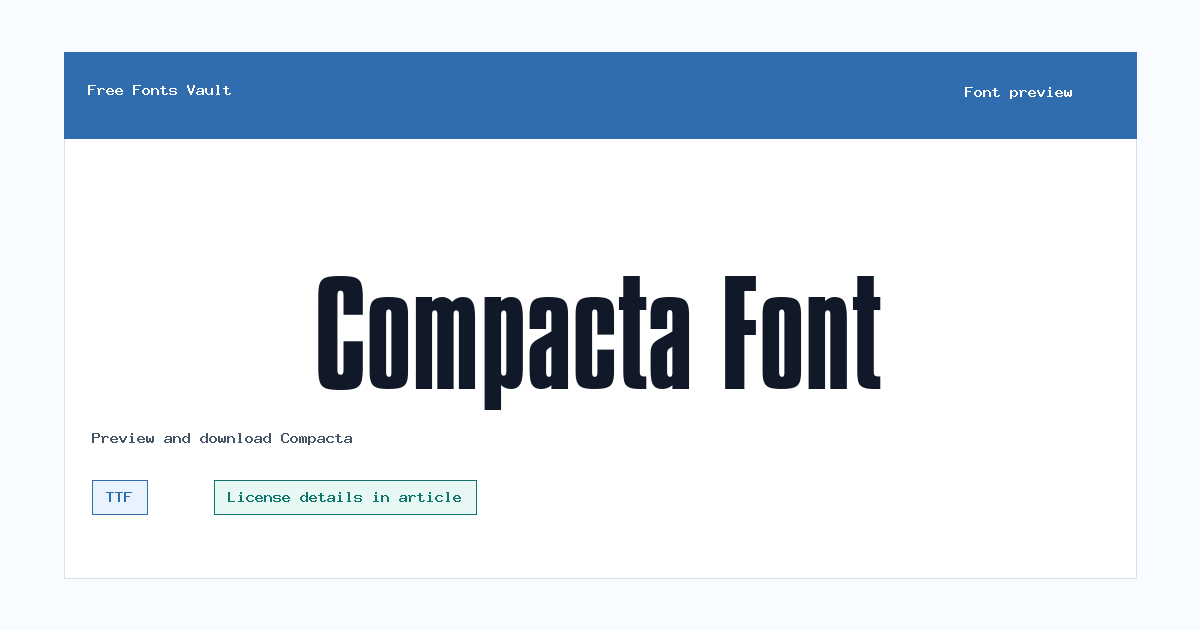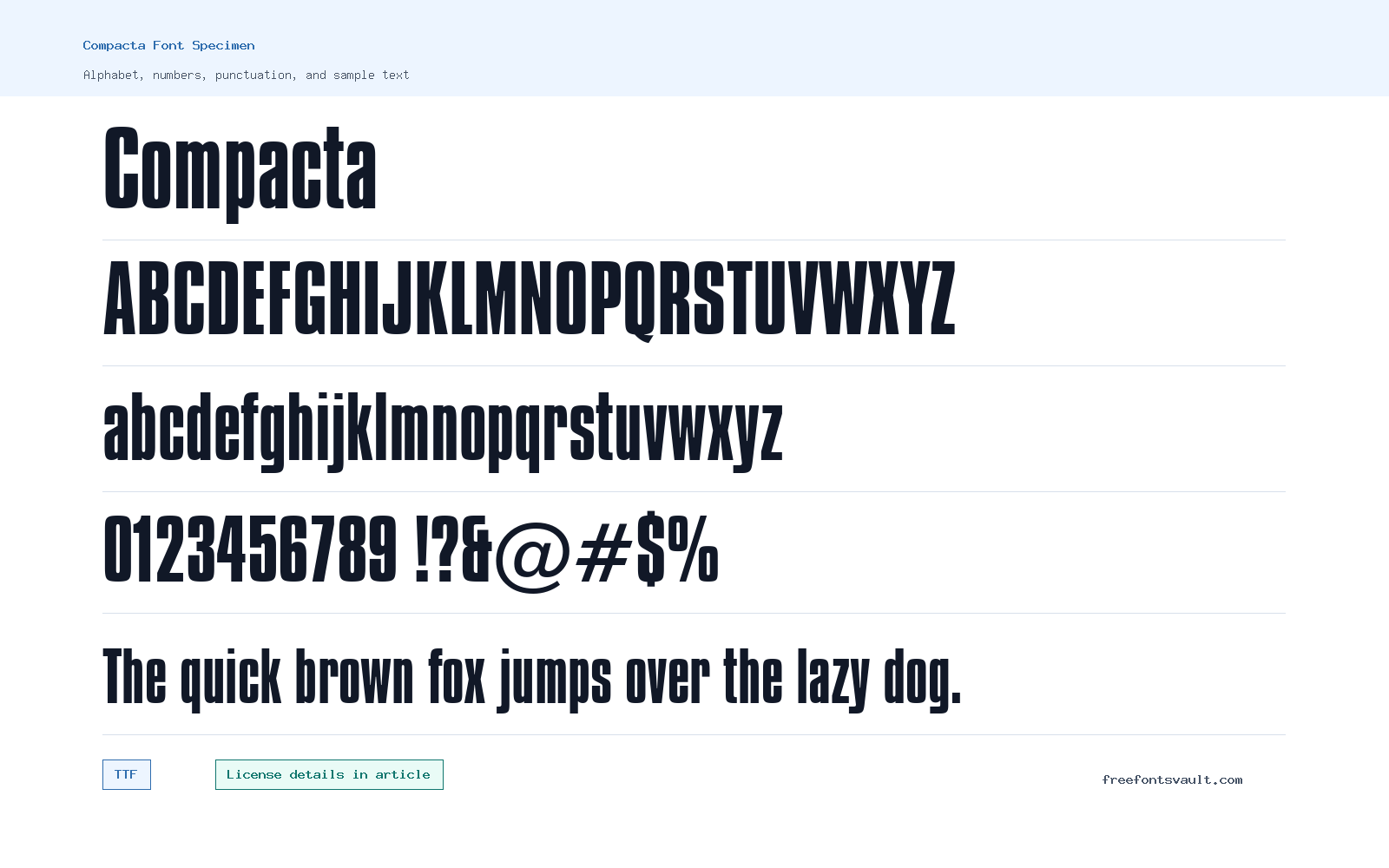
Compacta
- Designer Bitstream Inc
Compacta font.
Compacta is a font family with regular TrueType font files ready for preview and download. Use the live preview to check how its letters, spacing, and proportions work with your own text before choosing it for a design.
About Compacta Font
Compacta is useful when you need tight, strong display typography with a condensed presence. It can suit posters, magazine-style headlines, packaging tests, banners, title cards, and layouts where a few words need to feel bold without taking too much horizontal space.
- Headlines, titles, labels, and short display text after preview testing
- Design drafts where you need to compare compact or strong lettering before download